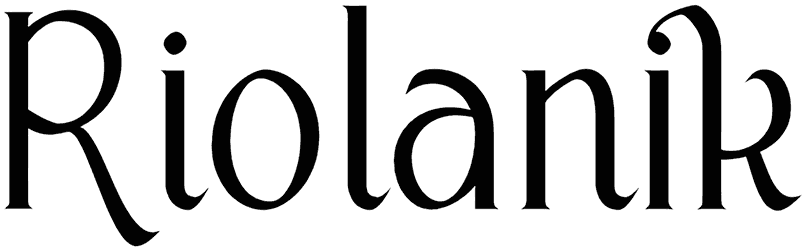
Riolanik Font
Give a distinct and beautiful visual to the words of your novel design to make it more engaging. This retro font, with its smooth and unique mood, can add a charming vibe to your café sign or other layouts. Test the Riolanik font for your coming project and surprise your followers with your distinct design.